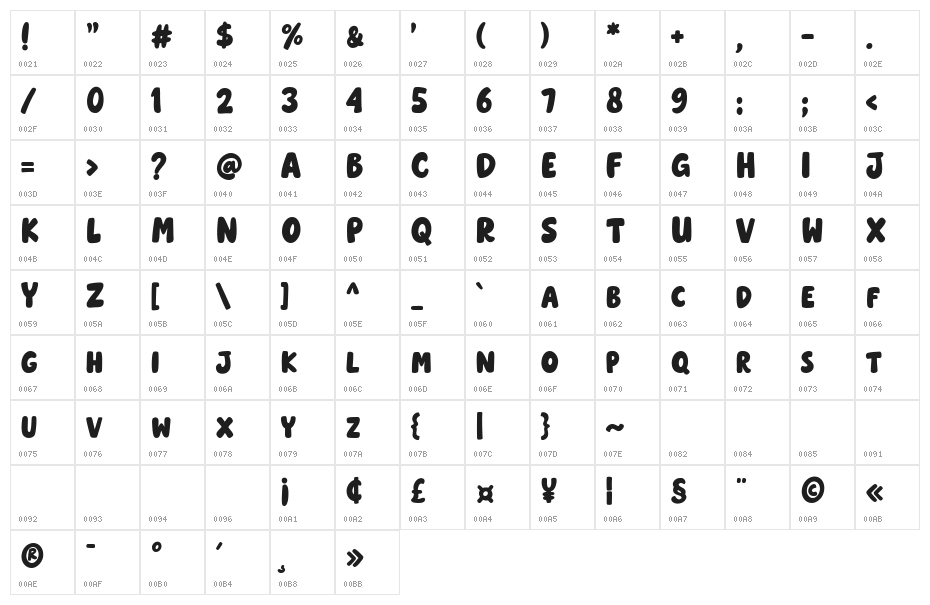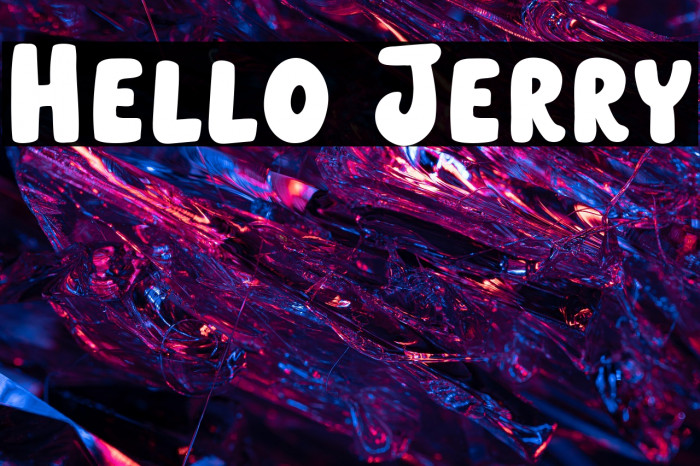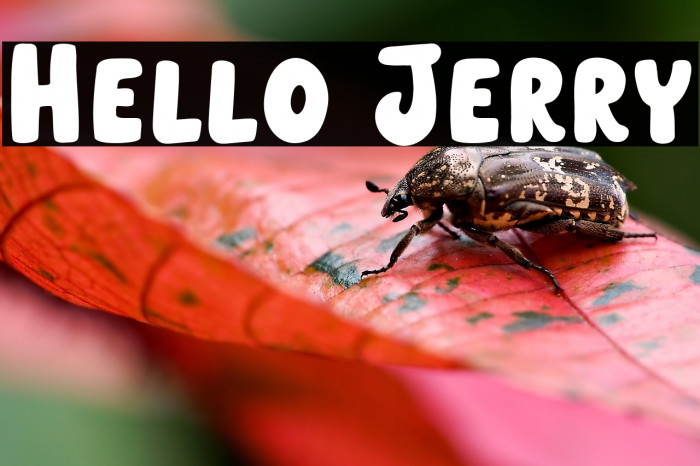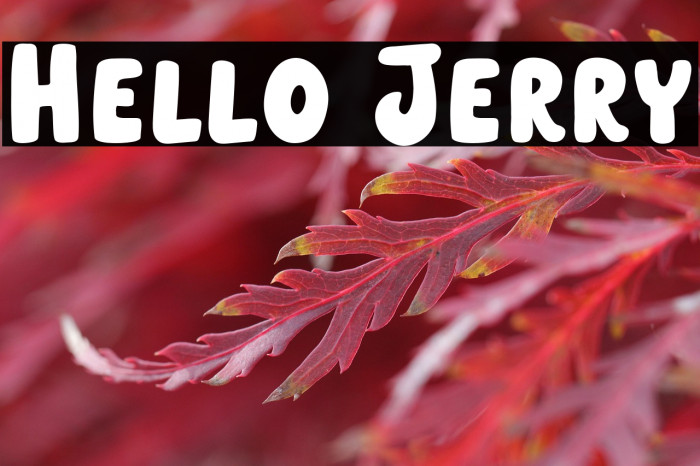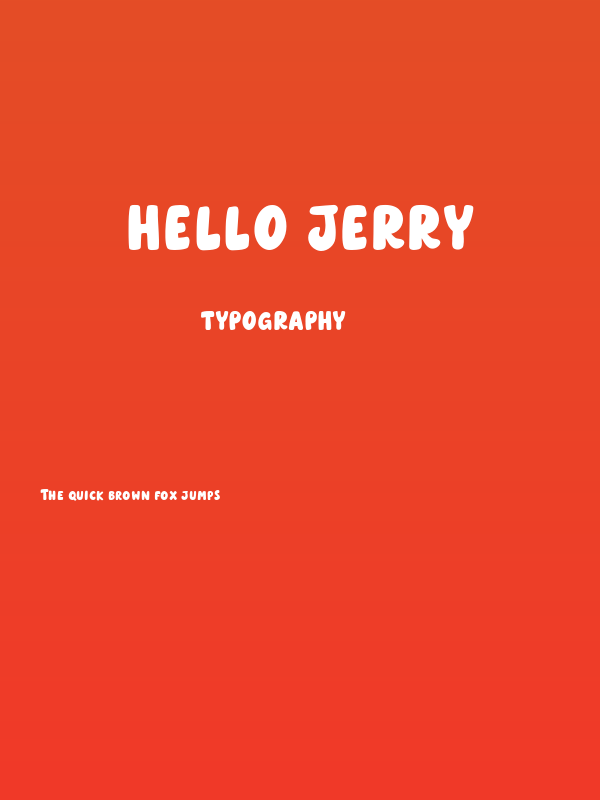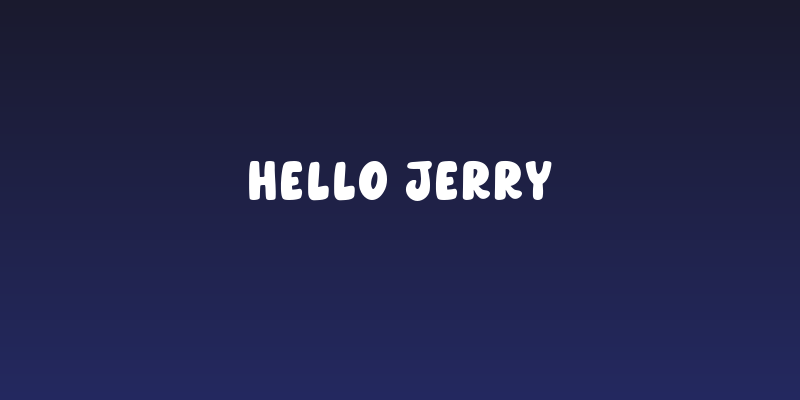
Hello Jerry Font
Hello Jerry Description
This playful and bold font features rounded edges and a thick, uniform stroke that conveys a sense of fun and approachability. The characters are slightly condensed, giving them a compact appearance while maintaining legibility. The font's style is consistent across uppercase, lowercase, numbers, and special characters, ensuring a cohesive look. Its boldness and rounded forms make it ideal for projects that require a friendly and informal tone. The font's design is reminiscent of hand-drawn lettering, adding a personal touch to any text.
| Width | Condensed |
| Overall Style | Playful, Casual |
| Proposed Projects | Perfect for children's books, playful branding, casual invitations, and social media graphics. |